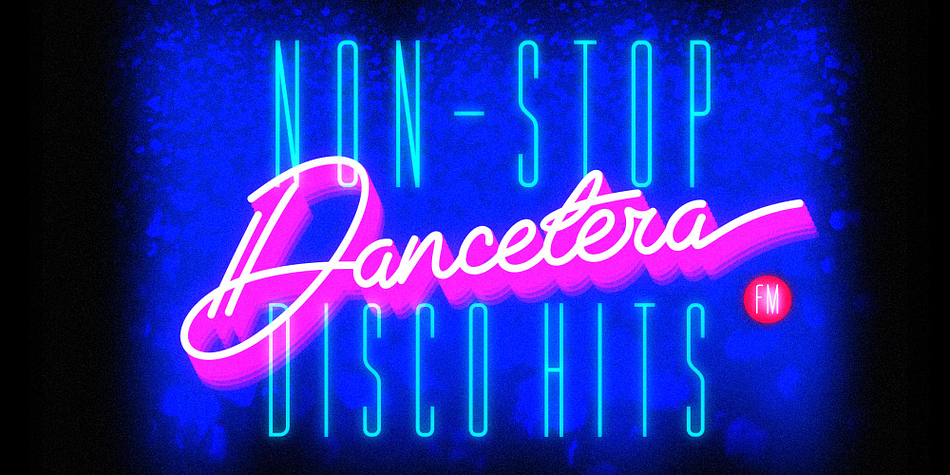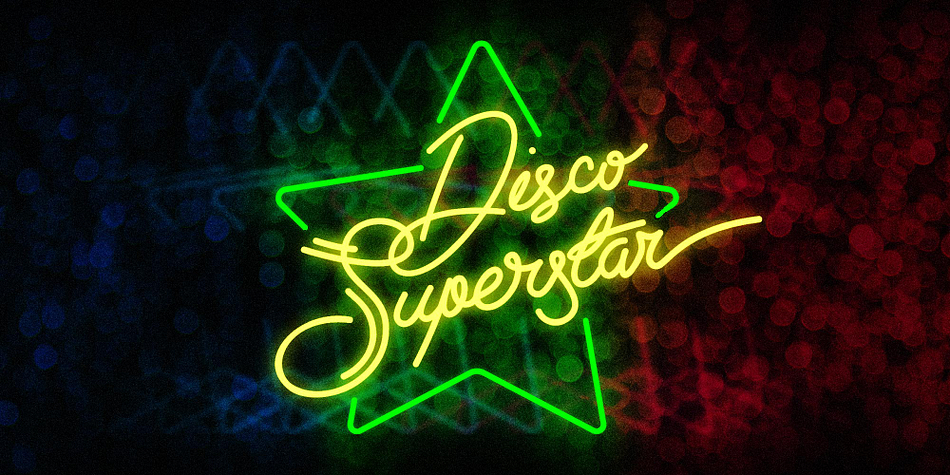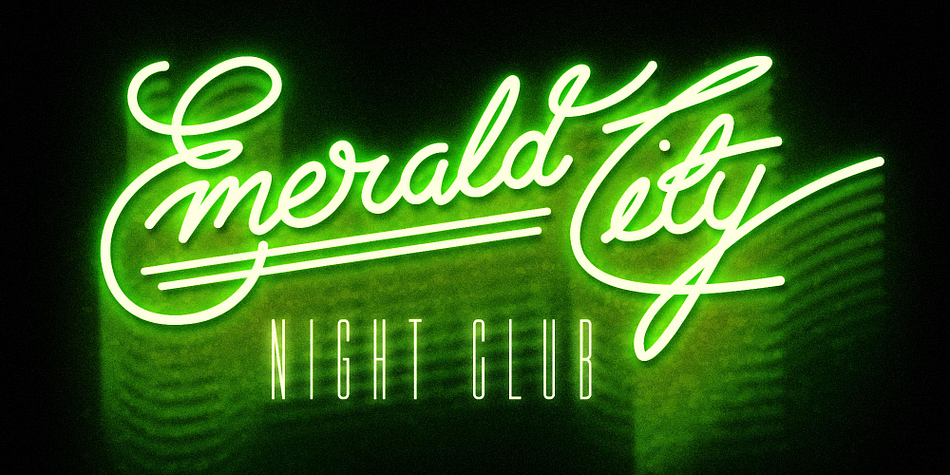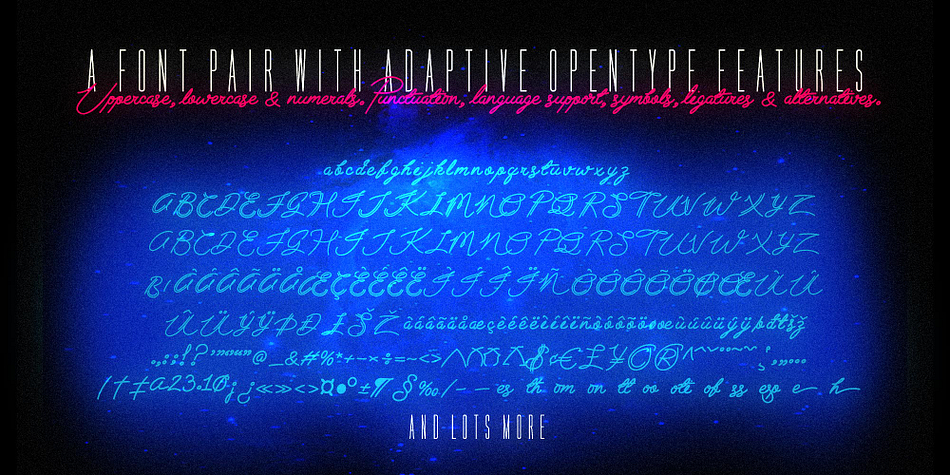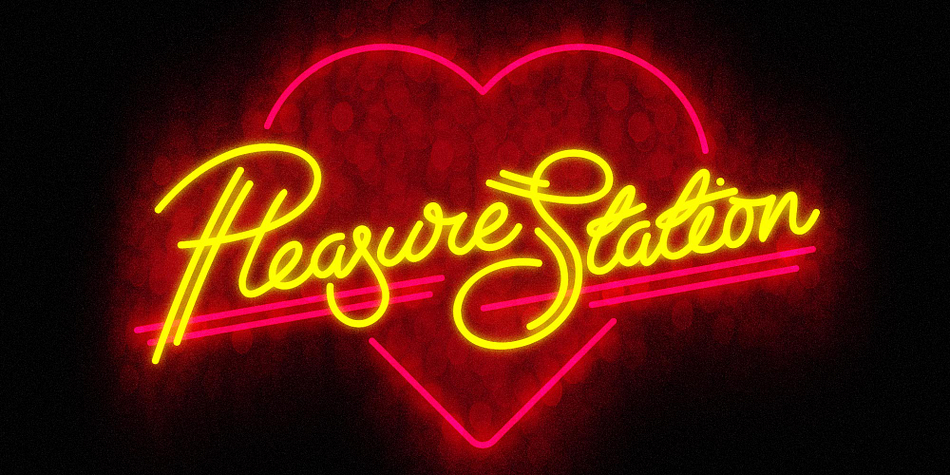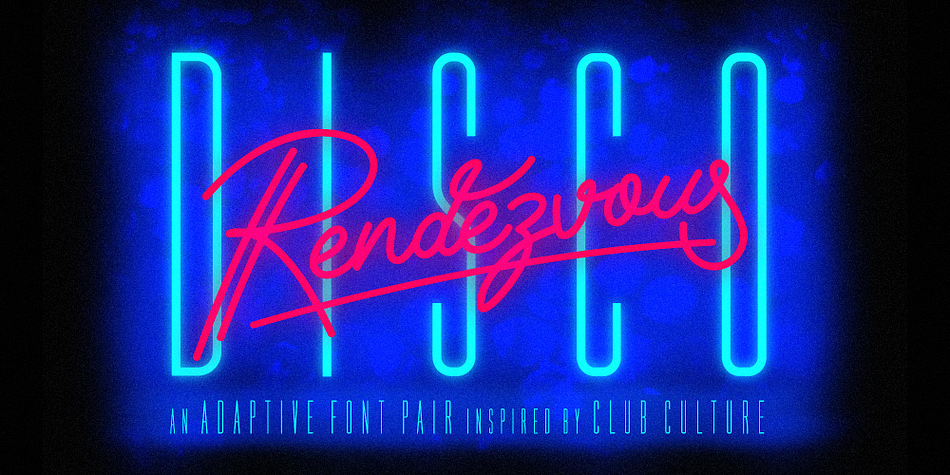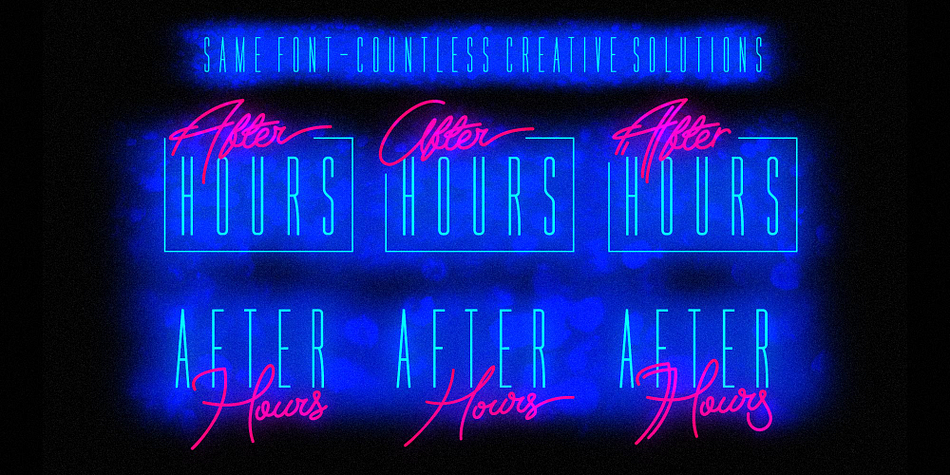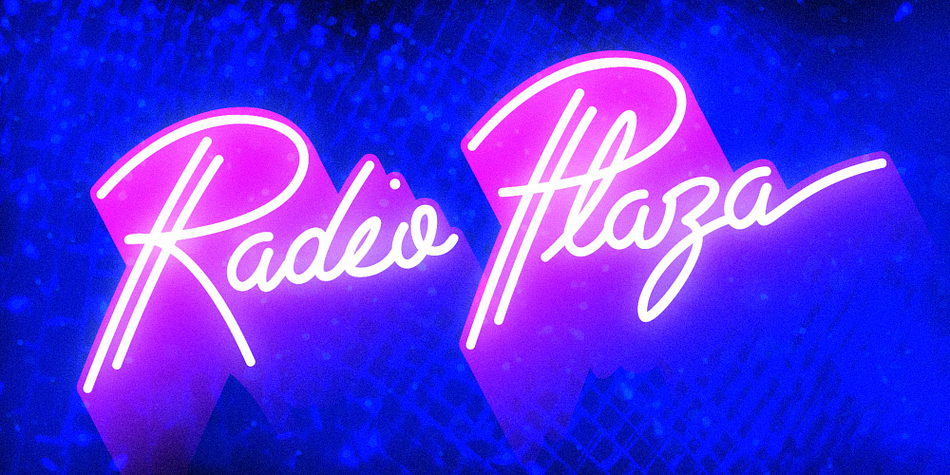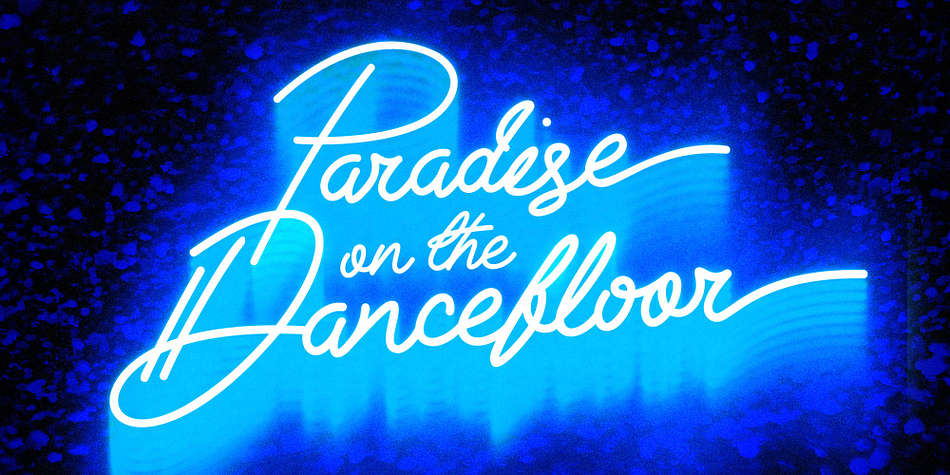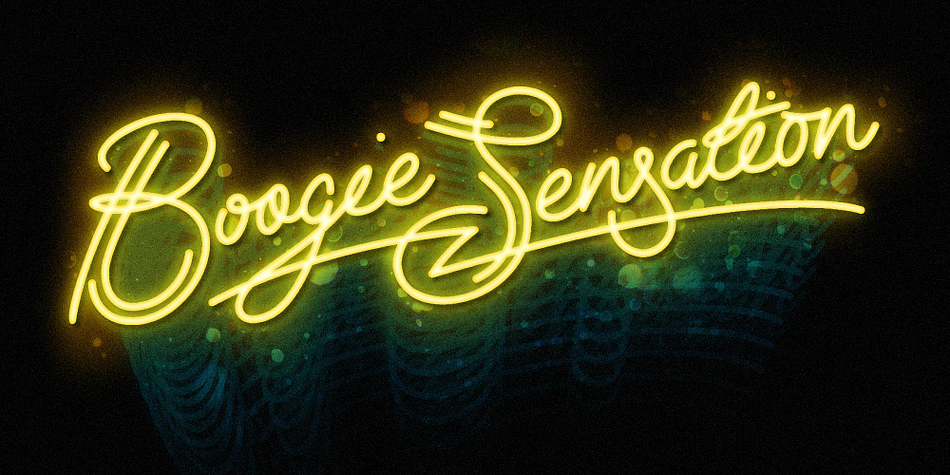
Disco Rendezvous
Disco Rendezvous is a script font family. This typeface has two styles and was published by Wingsart Studio.
Combining an elegant script and a tall sans serif font, Disco Rendezvous is a perfectly contrasted design that evokes the golden age of disco, inspired by neon-soaked nightclubs and epic dance floor hits.
The superstar of this show is the highly customisable script that takes full advantage of OpenType features to offer countless creative options via alternative characters and automatic ligatures, giving your headers and title designs an authentically hand-made look.
It features a complete set of uppercase and lowercase characters, along with numerals, punctuation, and language support, and used with the included sans serif font pair, you have a perfectly matched type treatment.